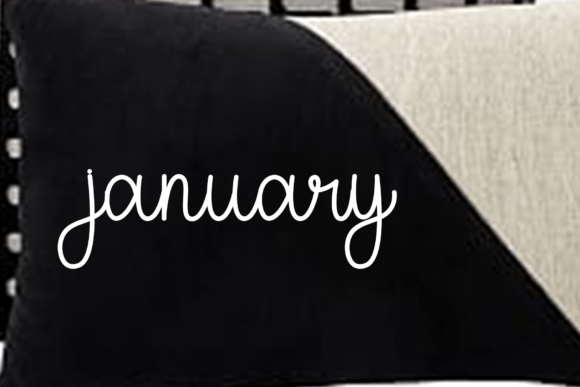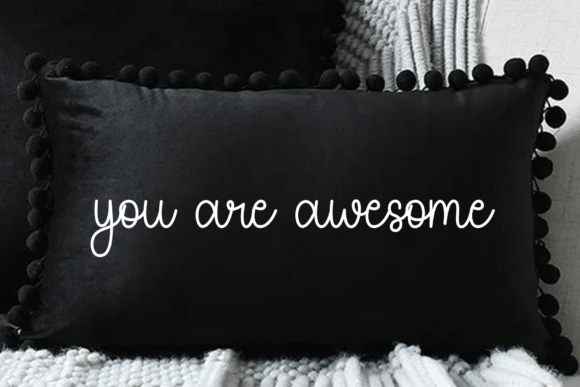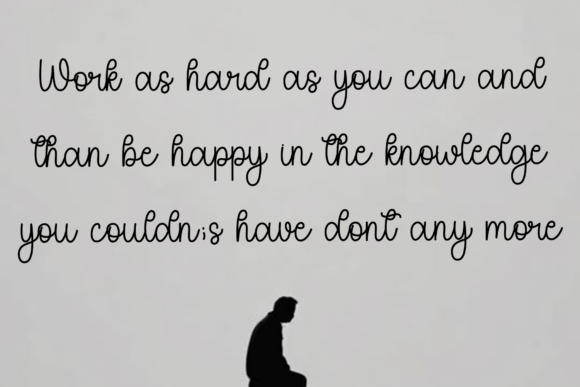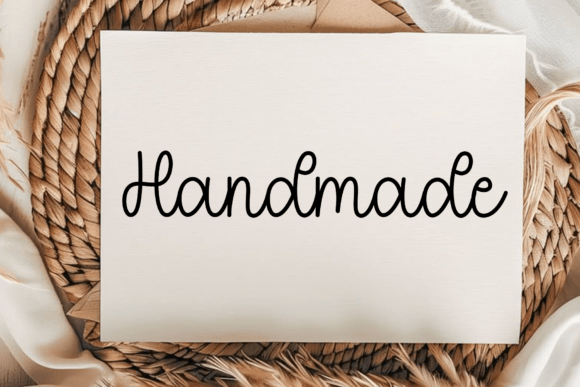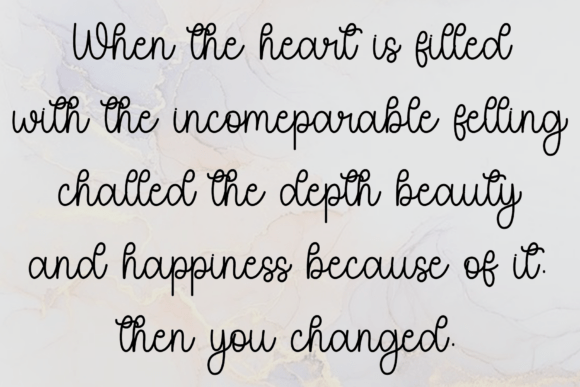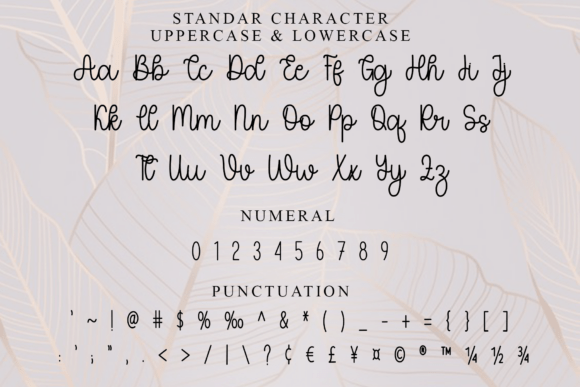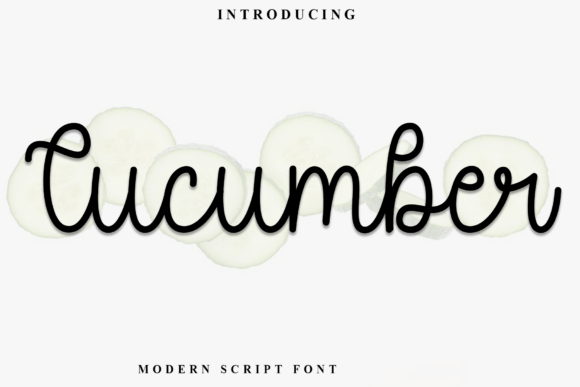
Cucumber Font: The Perfect Choice for Creative and Personal Projects
Are you looking for a font that exudes warmth and friendliness? Do you want to add a personal touch to your designs, invitations, and social media graphics? Look no further than the Cucumber Font! This casual and creative font is perfect for anyone who wants to create a relaxed and approachable feel in their designs.
The Characteristics of Cucumber Font
The Cucumber Font is characterized by its round, playful strokes that create a charming and hand-drawn aesthetic. The font’s unique and fun design makes it perfect for adding a personal touch to any project. Whether you’re working on a personal project, creating invitations, or designing social media graphics, the Cucumber Font is sure to make your designs stand out.
What Makes Cucumber Font So Special?
So, what makes the Cucumber Font so special? For starters, its casual and creative design makes it perfect for a wide range of projects. The font’s round, playful strokes create a relaxed and approachable feel that’s hard to achieve with more traditional fonts. Additionally, the Cucumber Font is equipped with standard PUA Encoded glyphs, which make it compatible with a wide range of application engines, including Adobe Photoshop, Corel, Adobe Illustrator, Canva, and many others.
Uses for Cucumber Font
The Cucumber Font is incredibly versatile, making it perfect for a wide range of projects. Here are just a few ideas to get you started:
- Personal projects: The Cucumber Font is perfect for personal projects, such as scrapbooking, journaling, and crafting.
- Invitations: The font’s charming, hand-drawn aesthetic makes it perfect for creating invitations for parties, weddings, and other special events.
- Social media graphics: The Cucumber Font is also great for creating social media graphics, such as Facebook posts, Instagram stories, and Twitter headers.
- Signs and posters: The font’s bold and playful design makes it perfect for creating signs and posters for events, sales, and promotions.
Benefits of Using Cucumber Font
There are many benefits to using the Cucumber Font in your designs. Here are just a few:
- Unique and creative: The Cucumber Font is a unique and creative font that will help your designs stand out from the crowd.
- Easy to read: Despite its playful design, the Cucumber Font is easy to read, making it perfect for body text and headlines.
- Versatile: The font’s versatility makes it perfect for a wide range of projects, from personal projects to commercial designs.
Tips for Using Cucumber Font
Here are a few tips for using the Cucumber Font in your designs:
- Use it sparingly: While the Cucumber Font is perfect for adding a personal touch to your designs, it’s best to use it sparingly. Use it for headlines, titles, and other design elements where you want to make a statement.
- Pair it with other fonts: The Cucumber Font pairs well with other fonts, such as sans-serif fonts and script fonts. Experiment with different font combinations to find the perfect look for your design.
- Experiment with different colors: The Cucumber Font looks great in a wide range of colors, from bright and bold to soft and pastel. Experiment with different colors to find the perfect look for your design.
In conclusion, the Cucumber Font is a unique and creative font that’s perfect for designers and crafters who want to add a personal touch to their designs. Its casual and creative design makes it perfect for a wide range of projects, from personal projects to commercial designs. With its standard PUA Encoded glyphs, the Cucumber Font is compatible with a wide range of application engines, making it easy to use in a variety of different applications. So why not give the Cucumber Font a try? With its charming, hand-drawn aesthetic and versatile design, it’s sure to become a favorite in your design arsenal.